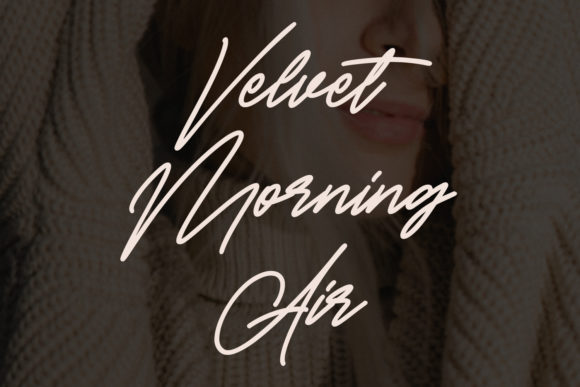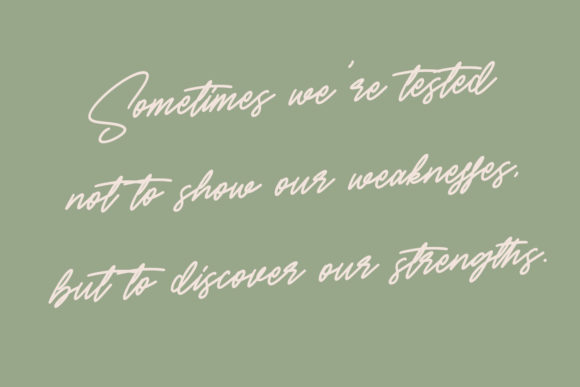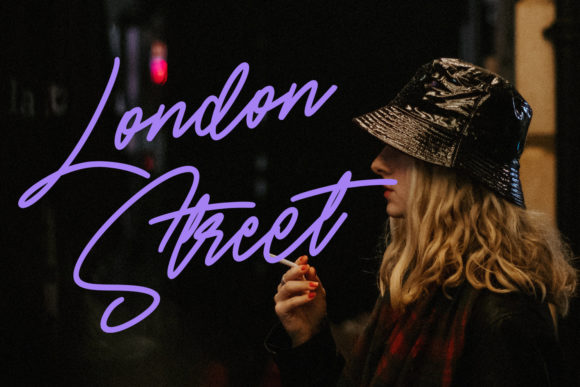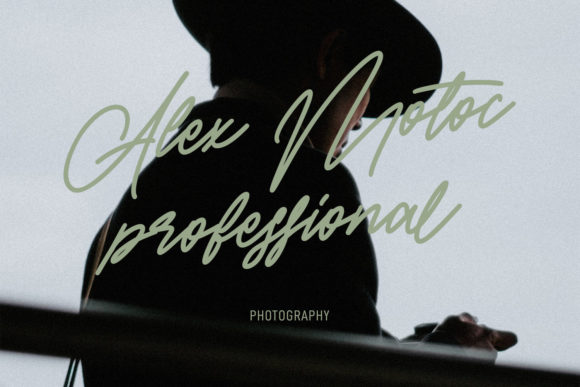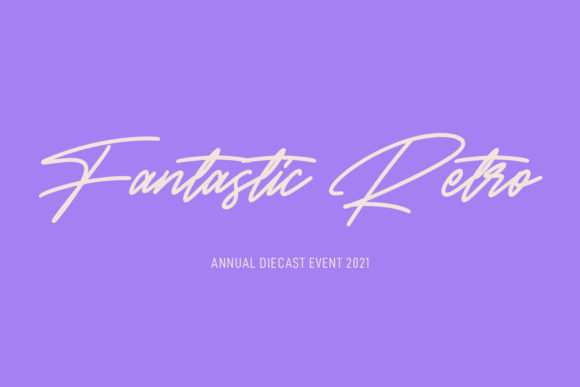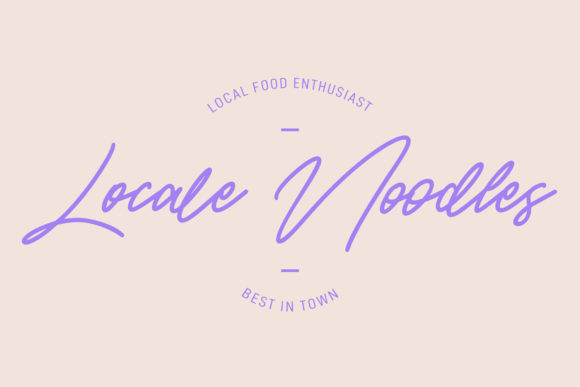
The Accolyter Font: A Stylish and Relaxed Handwritten Delight
I’ll never forget the design project that led me to discover the Accolyter font. I was working on a romantic getaway brochure for a client, and I was struggling to find the perfect font to capture the essence of a whimsical, dreamy escape. That’s when I stumbled upon Accolyter, a stylish and relaxed handwritten font that instantly stole my heart. In this article, I’ll share my experience with Accolyter, its features, and how to make the most of it in your designs.
- ✨ The gentle, flowing strokes of Accolyter make it perfect for designs that require a touch of elegance and romance.
- ✅ Its relaxed vibe makes it an excellent choice for a wide range of projects, from wedding invitations to travel brochures.
- 💕 The font’s unique character set and OpenType features allow for endless creative possibilities.
While Accolyter is an amazing font, there are a few things to keep in mind:
- 🤔 Some characters, like the uppercase letters, can be a bit quirky and may require manual adjustments for optimal spacing.
- ⚠️ The font’s relaxed nature might not make it the best fit for very formal or corporate designs.
The Story Behind Accolyter
Accolyter was designed with the intention of creating a font that embodies a sense of relaxation and joy. The designer aimed to craft a font that would be perfect for a wide range of creative projects, from romantic getaways to personal blogs. With its gentle strokes and unique character set, Accolyter has become a go-to font for designers seeking a touch of elegance and whimsy.
| Font Name | Accolyter Font |
| What makes Accolyter unique? | Accolyter’s unique character set, gentle strokes, and OpenType features make it a standout font for designs that require a touch of elegance and romance. |
| Is Accolyter suitable for formal designs? | While Accolyter is a beautiful font, its relaxed nature might not make it the best fit for very formal or corporate designs. |
| Does Accolyter support OpenType features? | Yes, Accolyter supports OpenType features, including stylistic alternates and glyphs, which can be accessed in compatible design software. |